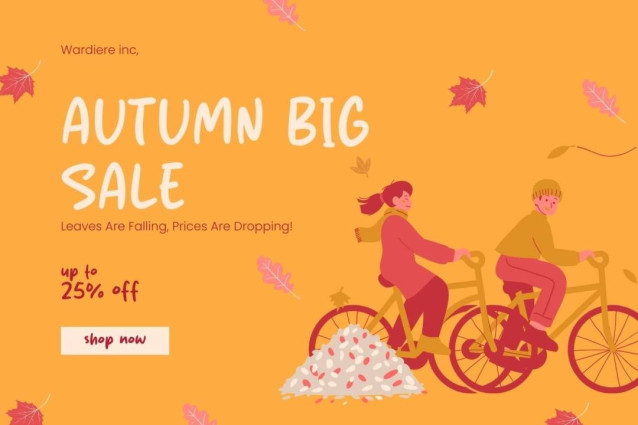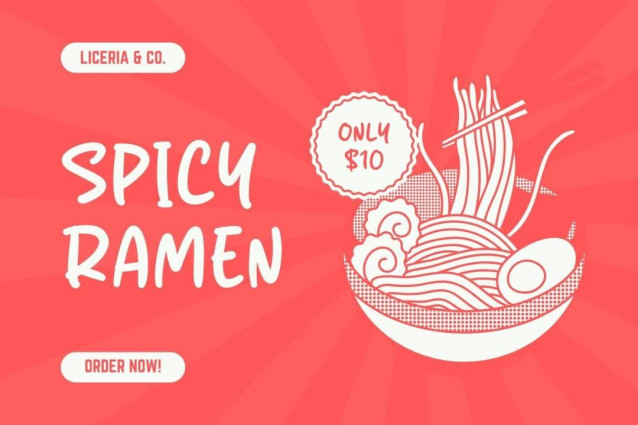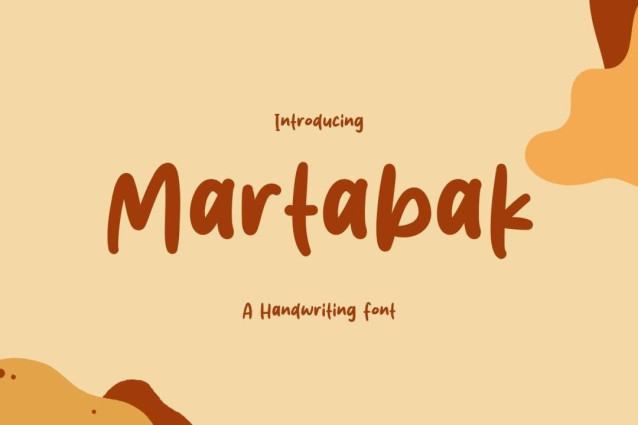
Martabak Font
Martabak Font is a simple and friendly handwritten font. Its natural and unique style makes it incredibly fitting to a large pool of designs. The only limit is your imagination!